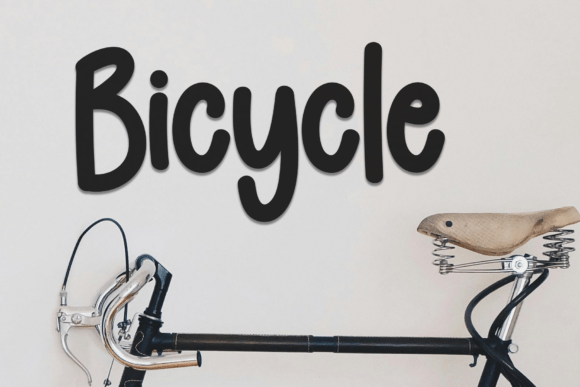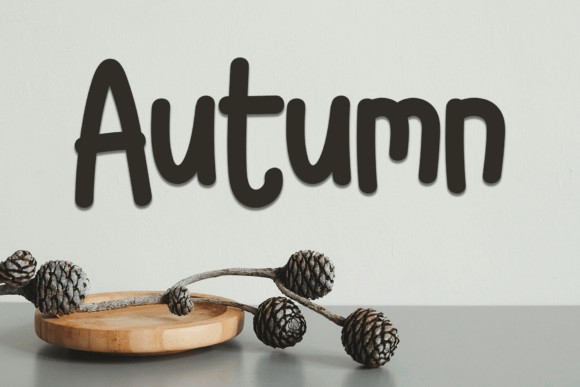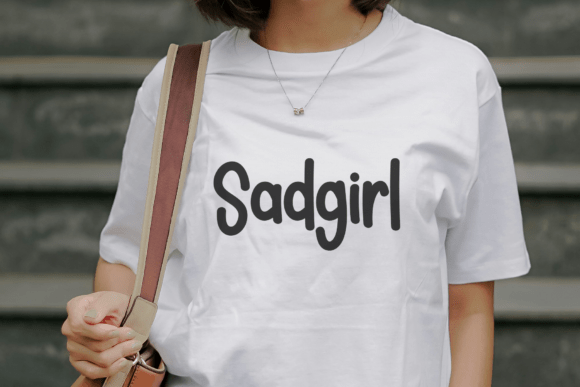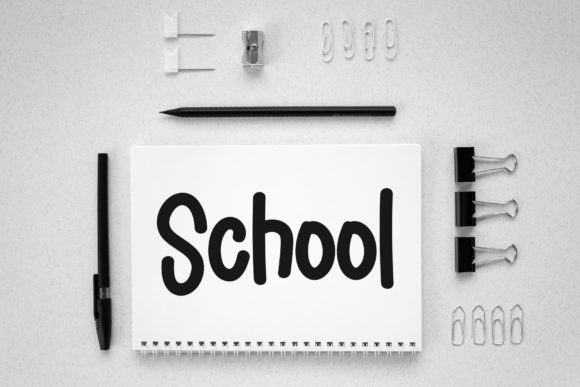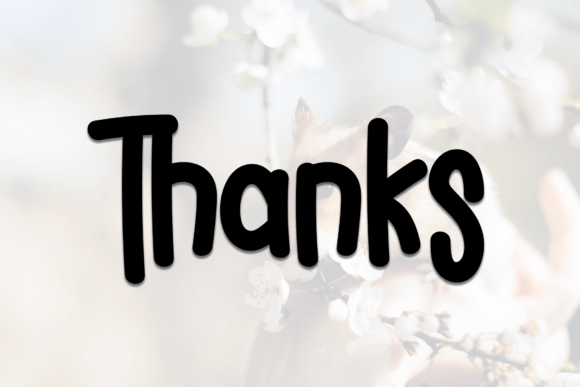
Introducing Hamster Font: The Perfect Blend of Relaxed and Luxurious
Are you a designer or crafter looking for a font that exudes a sense of casual elegance? Look no further than Hamster Font, a handwritten font that looks like it was drawn with a marker. With its relaxed and sporty feel, Hamster Font is perfect for a wide range of design projects, from branding and logos to wedding supplies and greeting cards.
The Characteristics of Hamster Font
Hamster Font is a unique and versatile font that boasts a number of desirable characteristics. Its handwritten style gives it a personal and approachable feel, while its marker-like quality adds a touch of playfulness and whimsy. The font’s relaxed and sporty vibe makes it ideal for designs that require a laid-back, yet sophisticated aesthetic.
Uses for Hamster Font
So, what can you use Hamster Font for? The possibilities are endless! Here are just a few ideas to get you started:
- Branding and Logos: Use Hamster Font to create a memorable and stylish logo that sets your brand apart from the competition.
- Wedding Supplies: Add a touch of elegance and whimsy to your wedding stationery, invitations, and other supplies with Hamster Font.
- Greeting Cards: Create beautiful and heartfelt greeting cards for any occasion with Hamster Font.
- Fashion and Lookbooks: Use Hamster Font to add a stylish and sophisticated touch to your fashion designs and lookbooks.
- Marketing Promotions: Make your marketing materials stand out with Hamster Font’s unique and eye-catching style.
Why Choose Hamster Font?
So, why should you choose Hamster Font for your design projects? Here are just a few reasons:
- Unique Style: Hamster Font’s marker-like quality and handwritten style make it a one-of-a-kind font that will set your designs apart from the competition.
- Versatility: Hamster Font is perfect for a wide range of design projects, from branding and logos to wedding supplies and greeting cards.
- Elegant yet Casual: Hamster Font strikes the perfect balance between elegance and casualness, making it ideal for designs that require a sophisticated yet laid-back aesthetic.
Tips for Using Hamster Font
Here are a few tips for getting the most out of Hamster Font:
- Experiment with Different Sizes: Hamster Font looks great in a variety of sizes, so don’t be afraid to experiment and find the perfect size for your design.
- Pair with Other Fonts: Hamster Font pairs well with a variety of other fonts, so try pairing it with a bold font for headings and a clean font for body text.
- Use for Headlines and Titles: Hamster Font is perfect for headlines and titles, where its unique style can really shine.
In conclusion, Hamster Font is a versatile and stylish font that is perfect for designers and crafters looking for a relaxed yet luxurious aesthetic. With its unique marker-like quality and handwritten style, Hamster Font is sure to add a touch of elegance and whimsy to any design project. So why not give Hamster Font a try today and see the difference it can make in your designs?